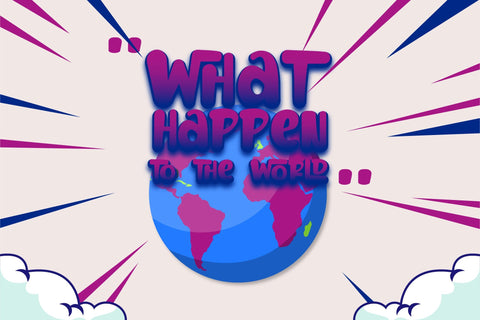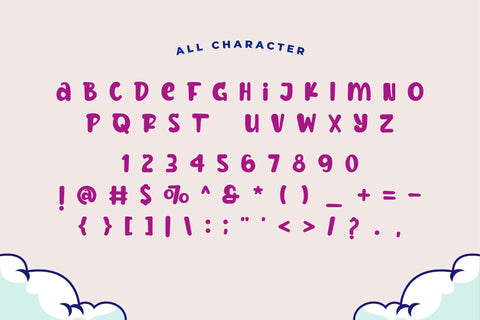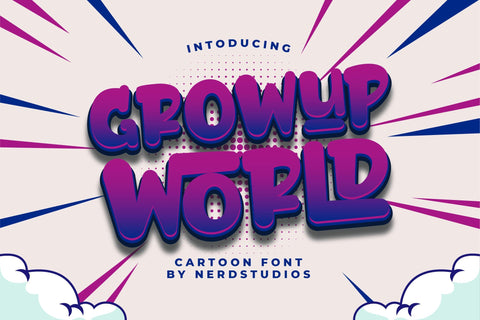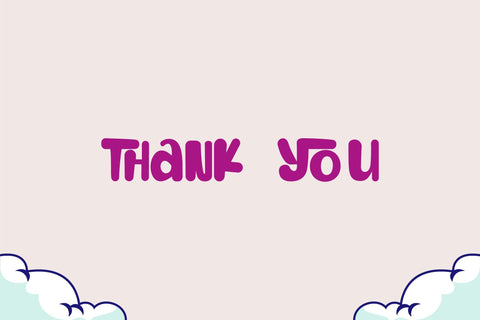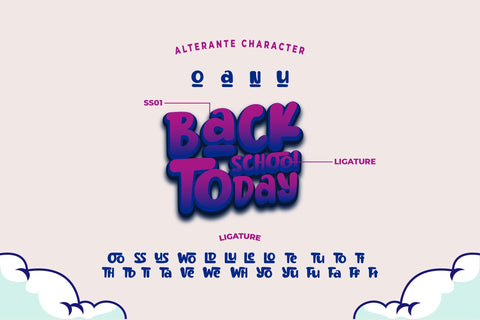
Growup World Cartoon Font
Growup World Cartoon Font-for cute and flexible design style with unique character that can enhance the quality of your designs.
+ Standard glyph
+Ligature
+Alternate Character